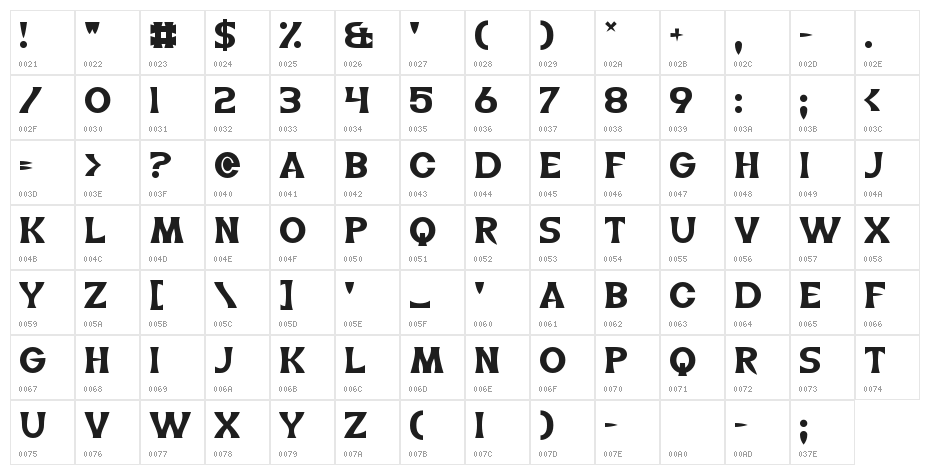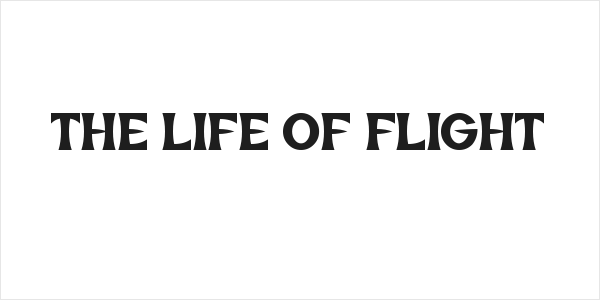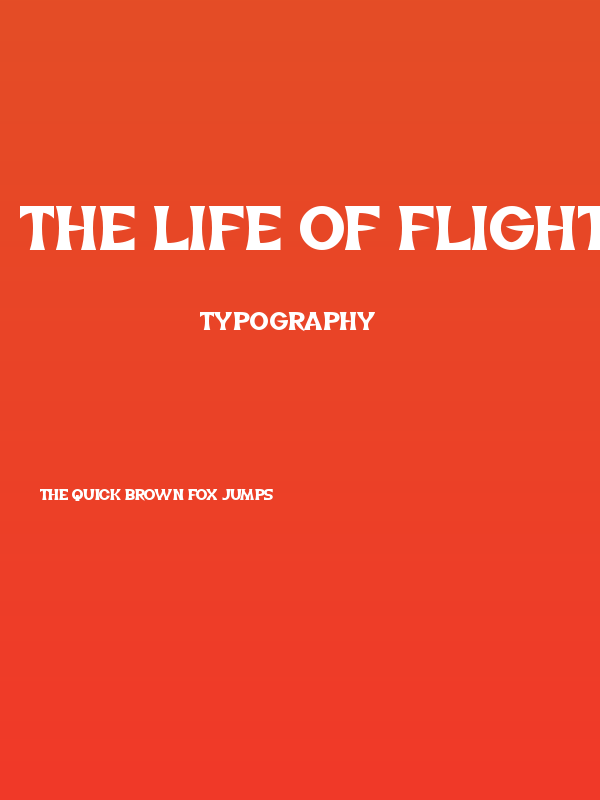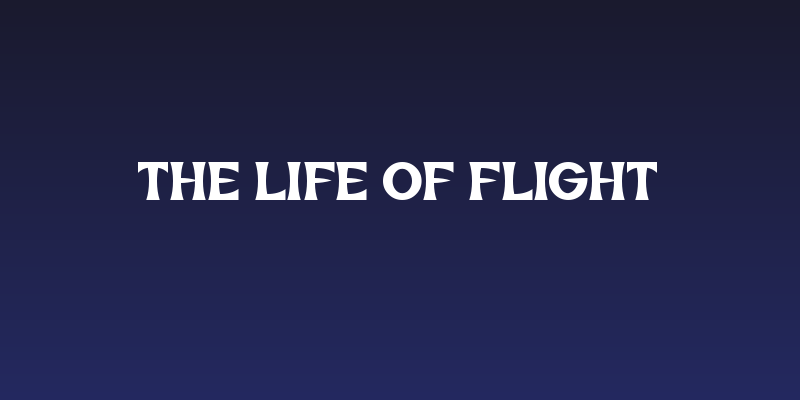
The Life of Flight Font
The Life of Flight Description
This font features bold, dynamic characters with a unique, angular design that gives it a modern and edgy appearance. The letters are characterized by sharp edges and a distinct geometric style, making them stand out prominently. The uppercase and lowercase letters maintain a consistent style, with a slight variation in size and shape that adds to the font's versatility. The numerals and special characters follow the same design principles, ensuring a cohesive look across all text elements. This font's strong visual impact makes it suitable for projects that require a bold statement.
Proposed ProjectsIdeal for branding, posters, headlines, and any design that needs a strong visual impact.